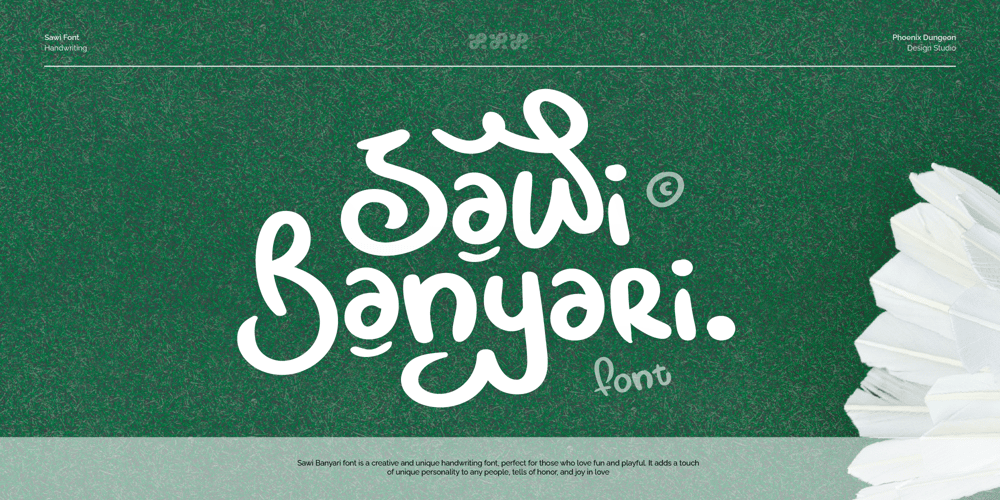
Sawi Banyari Font Family was designed by Alif Naufal Muzakki and published by Phoenix Group. Sawi Banyari contains 1 styles and family package options. Sawi Banyari font is a creative and unique handwriting font, perfect for those who love fun and playful. It adds a touch of unique personality to any people and tells of honor, and joy in love.